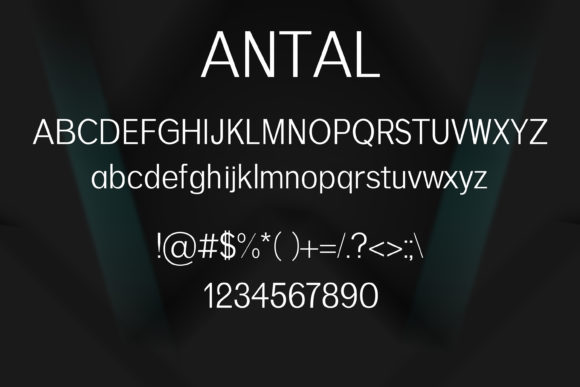
Discover the Perfect Blend of Tradition and Modernity
Have you ever been stuck on a design project, staring at a blank screen, desperately searching for the right font to bring your vision to life? That’s exactly where I was once, until I stumbled upon the Antal Font – a stunning sans serif font that has become my go-to choice for modern designs.
Antal Font is more than just a font; it’s a tribute to the traditional sign painting techniques that have been passed down through generations. With a clean and minimal aesthetic, it’s perfect for designers who want to create a lasting impression without overwhelming their audience. Whether you’re working on a branding project, creating a website, or designing a brochure, Antal Font is an invaluable asset in your design arsenal.
Antal Font Key Features
- Font Size and Style: Antal Font comes in multiple font sizes, ranging from 12 to 72 points, and offers a range of styles, including regular, italic, bold, and bold italic.
- Resolution: Antal Font is designed to be scalable, allowing it to be used at various resolutions, from 72 dpi to 300 dpi, without compromising on quality.
- Unique Characteristics: Antal Font features a unique, modern design with a focus on clean lines, geometric shapes, and a minimalist aesthetic, making it perfect for use in logos, branding, and digital design.
- Language Support: Antal Font supports a wide range of languages, including Latin, Cyrillic, and Greek, making it a versatile choice for international applications.
- Font Weight and Opacity: Antal Font offers a range of font weights, from light to extra bold, and allows for adjustable opacity, giving designers greater flexibility and control over the font’s appearance.
Antal Font Review
Overall, I have mixed feelings about the Antal font. On one hand, there are some aspects that I really like, but on the other hand, there are some limitations that might make it less appealing to certain users.
- Legibility: The Antal font is highly legible, making it perfect for body text and reading materials.
- Neutral Tone: The font has a neutral tone that makes it suitable for various industries and purposes.
- Large Character Set: The font comes with a large character set, including Cyrillic, Greek, and Latin characters.
Limitsations ⚠️
- Lack of Expressiveness: The font can come across as a bit bland and lacks expressiveness, which might make it less engaging for creative projects.
- Limited Italic Options: The font’s italic options are limited, which might make it less suitable for projects that require extensive use of italic text.
- Not Ideal for Display Text: While the font is great for body text, it’s not ideal for display text or headings, where a more dramatic font might be more effective.
Overall, I would say that the Antal font is a solid choice for body text and reading materials, but it might not be the best fit for more creative or display-oriented projects.
For best results, use Antal Font in headings and titles to create a strong visual impact.
For best results, use Antal Font in combination with other bold and modern fonts to create a visually appealing design.
For best results, use Antal Font in headings and titles to create a strong visual impact.
Antal Font is suitable for:
- Modern branding and identity design
- Corporate communications and presentations
Remember to use Antal Font in combination with other bold and modern fonts to create a visually
Alternatives to Antal Font for Designers
Montserrat is a sans-serif font designed by Julieta Ulanovsky, perfect for digital design projects. It’s a great choice when you need a clean and modern look. Montserrat has a more geometric feel compared to Antal Font, which is more rounded and elegant.
Open Sans is a highly legible sans-serif font designed by Steve Matteson. It’s ideal for body text and is suitable for a wide range of applications. Open Sans is more neutral and versatile compared to Antal Font, which has a more distinctive style.